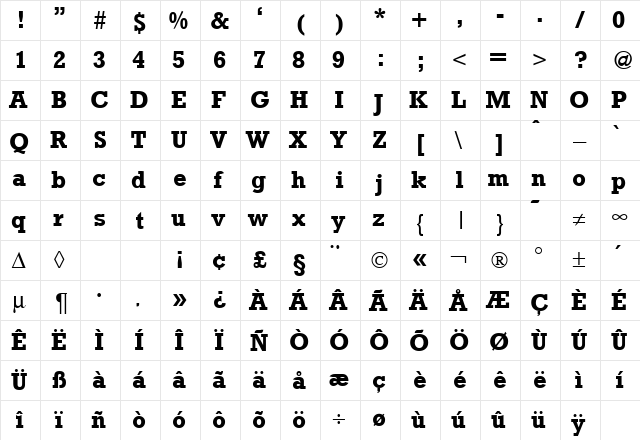
Rambault Bold
Design Context for Rambault Typeface
Rambault offers clean, dependable letterforms without strong stylistic allegiance, making it a practical choice for designers who need flexibility. Its bold stroke weight gives it real presence on the page.